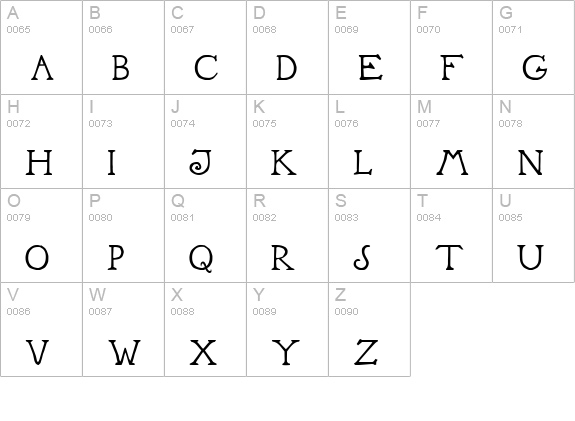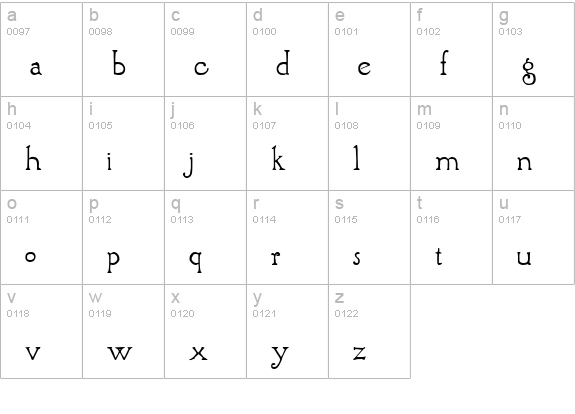
Brandywine™ font is a stunning display typeface that exudes elegance and sophistication. Its graceful curves and unique letterforms make it a perfect choice for projects that require a touch of class. The font's timeless design is versatile and can be used for various purposes, from invitations to branding materials. What's even better is that Brandywine™ font is available for free download at FontsMarket.com. This means you can add this exquisite font to your design arsenal without breaking the bank. Don't miss out on the opportunity to elevate your projects with the beauty and charm of Brandywine™ font.